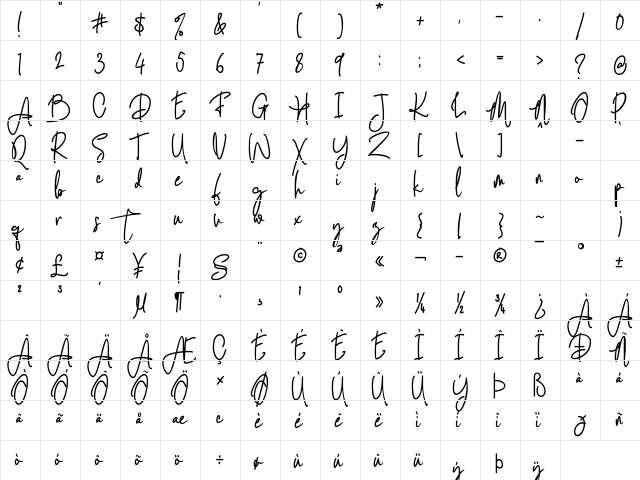
Darling Suttine Regular
| Designer | Aldedesign 2019 |
Design Context for Darling Suttine Typeface
Darling Suttine is a composed and adaptable typeface that performs quietly and consistently across a wide range of design contexts.